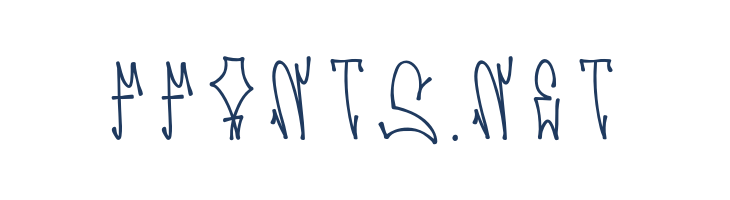
Muralha PERSONAL USE Regular Font
Muralha PERSONAL USE Regular Description
A decorative, handwritten style font with irregular, whimsical letterforms that resemble a fantasy or mystical theme.
| Overall Style | Whimsical, Fantasy, Decorative |
| Use Case | Headlines, Titles, Logos, Decorative Text |